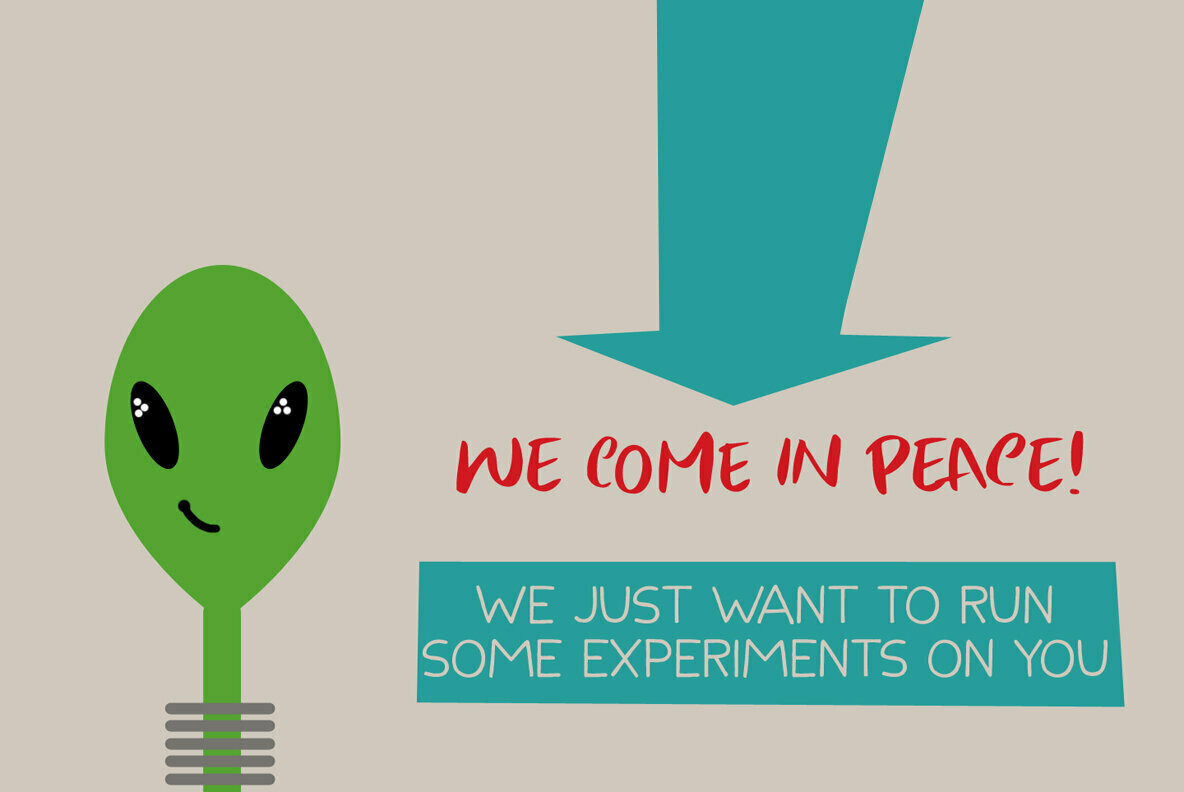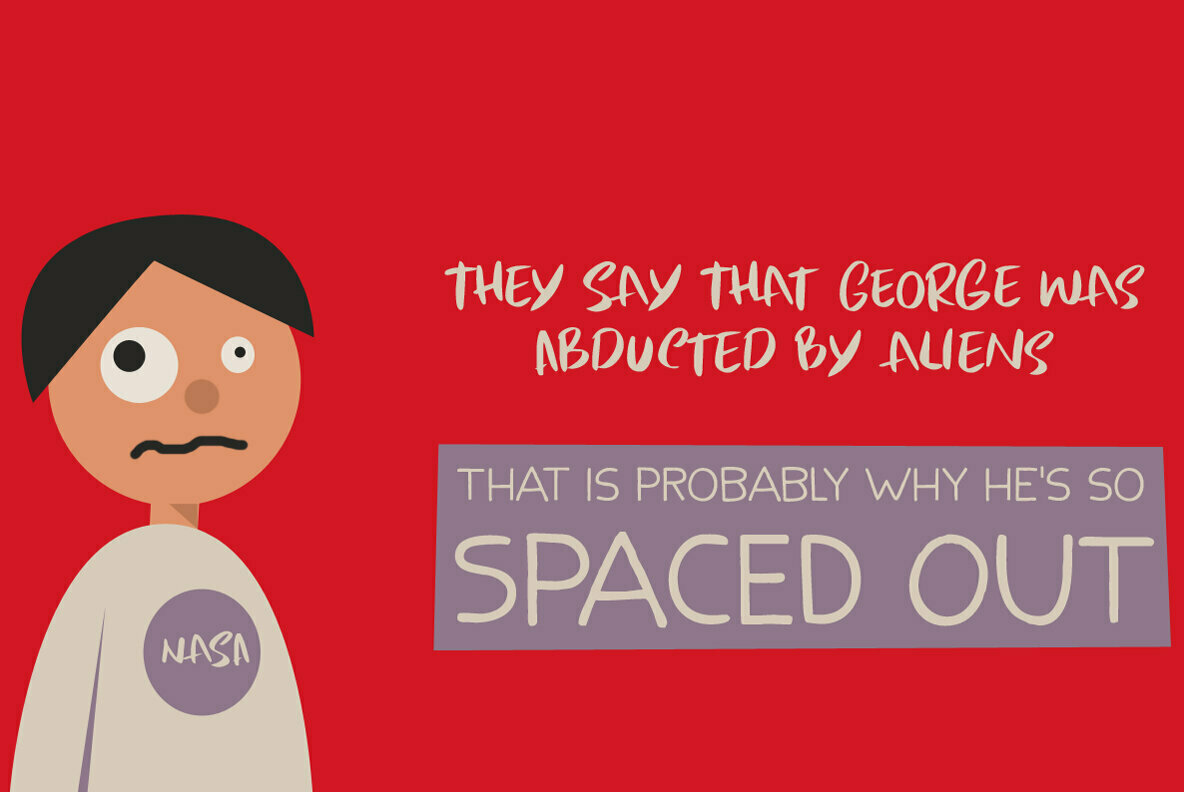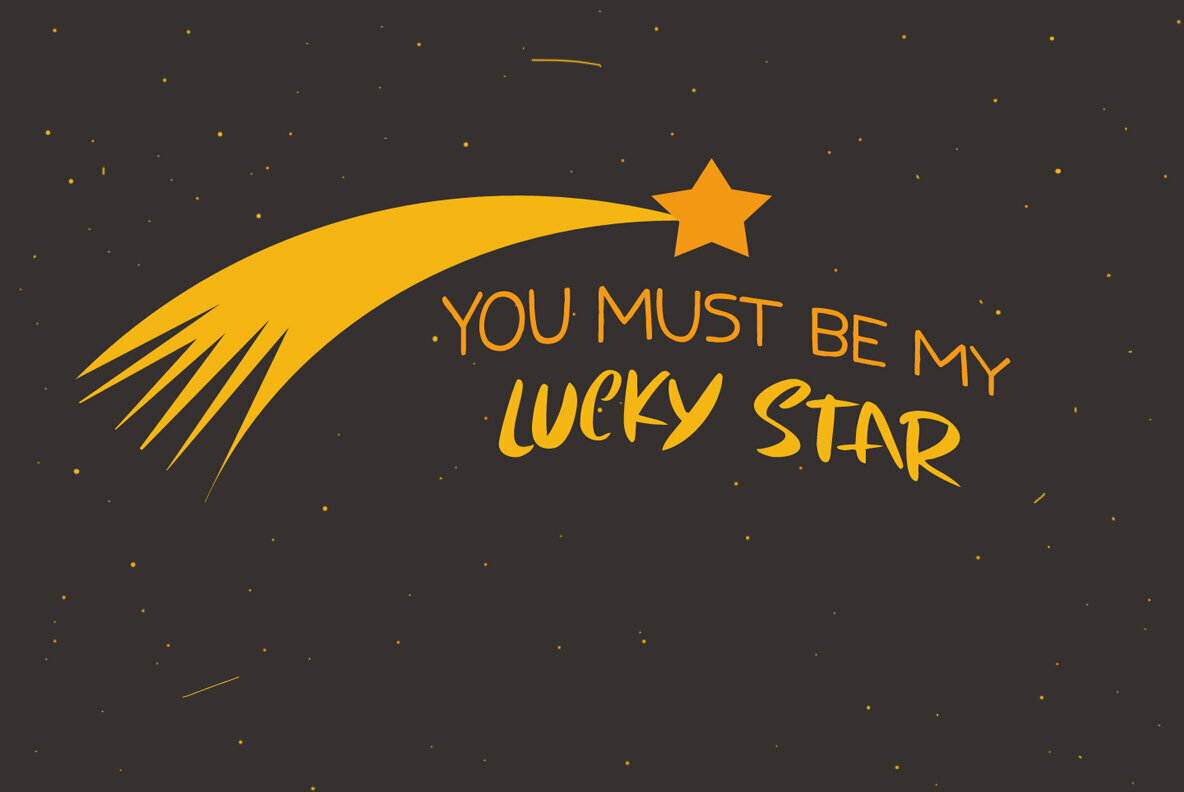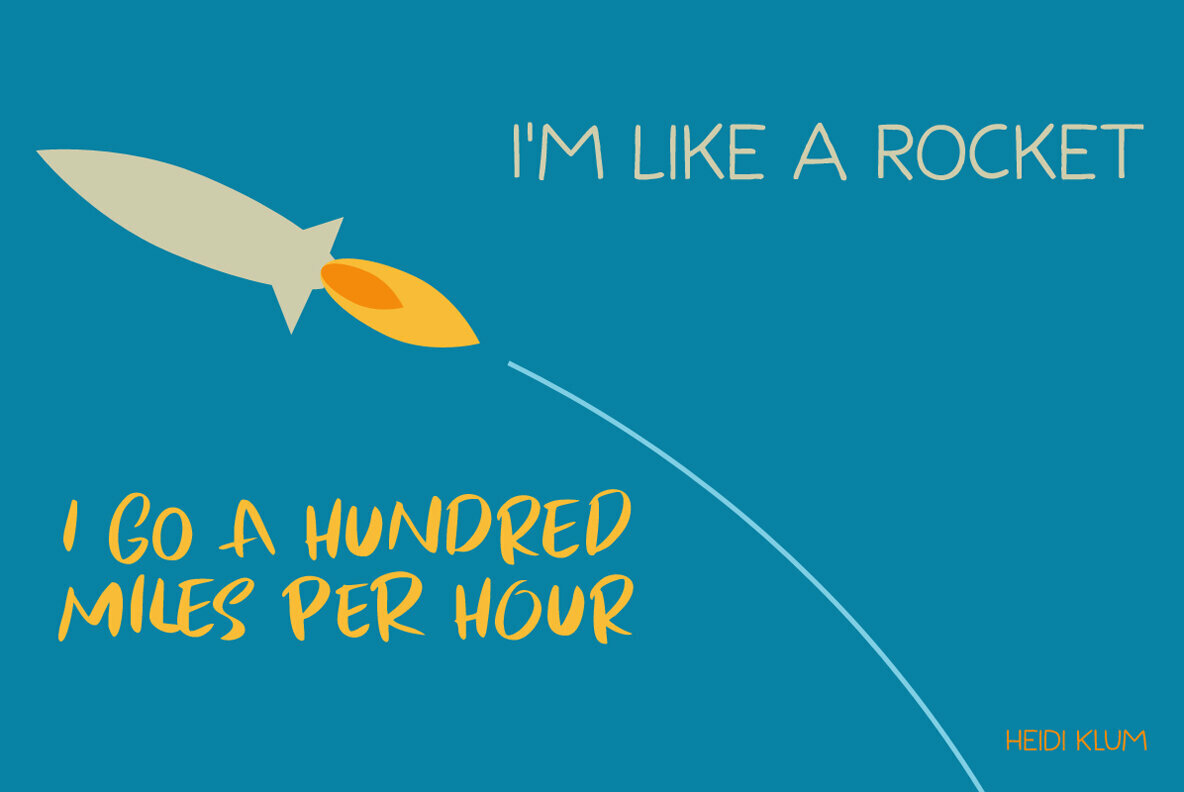
My 7 year old son is reading a book called ‘Spees De Ruimtewees’ (Spees, the Galactic Orphan), so when I needed a name for this font family, I didn’t have to think a lot! Flying Saucer is a family of 2 fonts: a rough(ish) sans serif and a script font. Both fonts come with Italics.
Use Flying Saucer for anything space related (or whatever you feel like using it for).